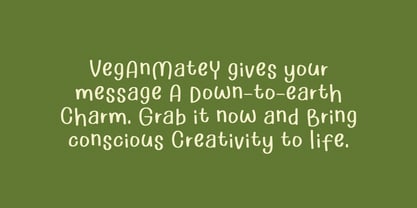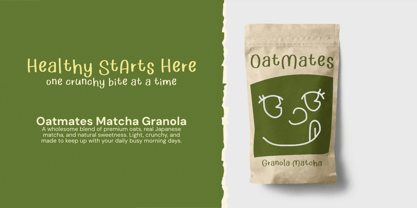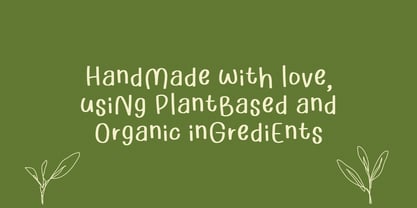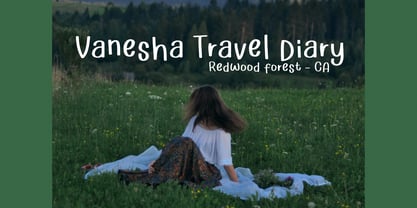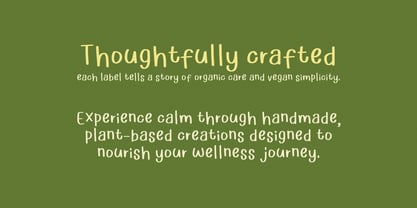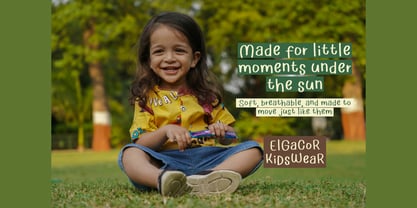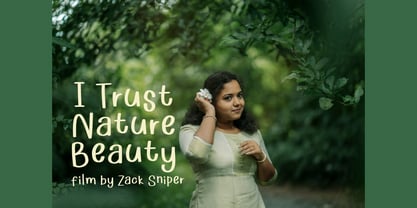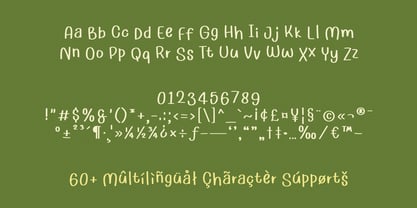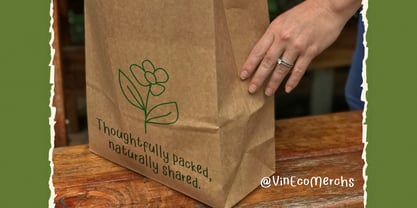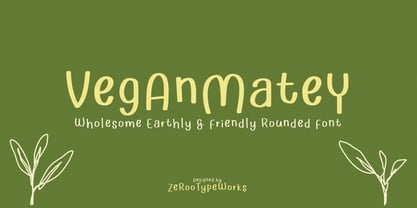
ZRTW Veganmatey
by Zerootypeworks
The ZRTW Veganmatey Font Family was designed by Gumilang Anggara Ruslan and published by Zerootypeworks. ZRTW Veganmatey contains 1 styles.
VeganMatey is a rounded, soft-style handwritten font with an earthy and organic tone, perfect for eco-conscious branding, packaging, and digital content. Its calm and clean letterforms make it ideal for plant-based labels, lifestyle quotes, children’s products, or wellness projects. With a friendly handmade feel, VeganMatey helps brands communicate warmth, sincerity, and sustainable values.
• Font style & energy: Soft, rounded, wholesome, approachable
• Market vibe fit: Eco-branding, organic packaging, plant-based blogs, kids’ food brands, wellness social media
• Letterform structure: Handcrafted, monoline, semi-rounded sans-serif with playful bounce
• Best use cases:
• Plant-based food branding
• Eco-conscious packaging & stickers
• Instagram quotes for green lifestyle accounts
• Children’s product labels
• Nature blogs & wellness journaling